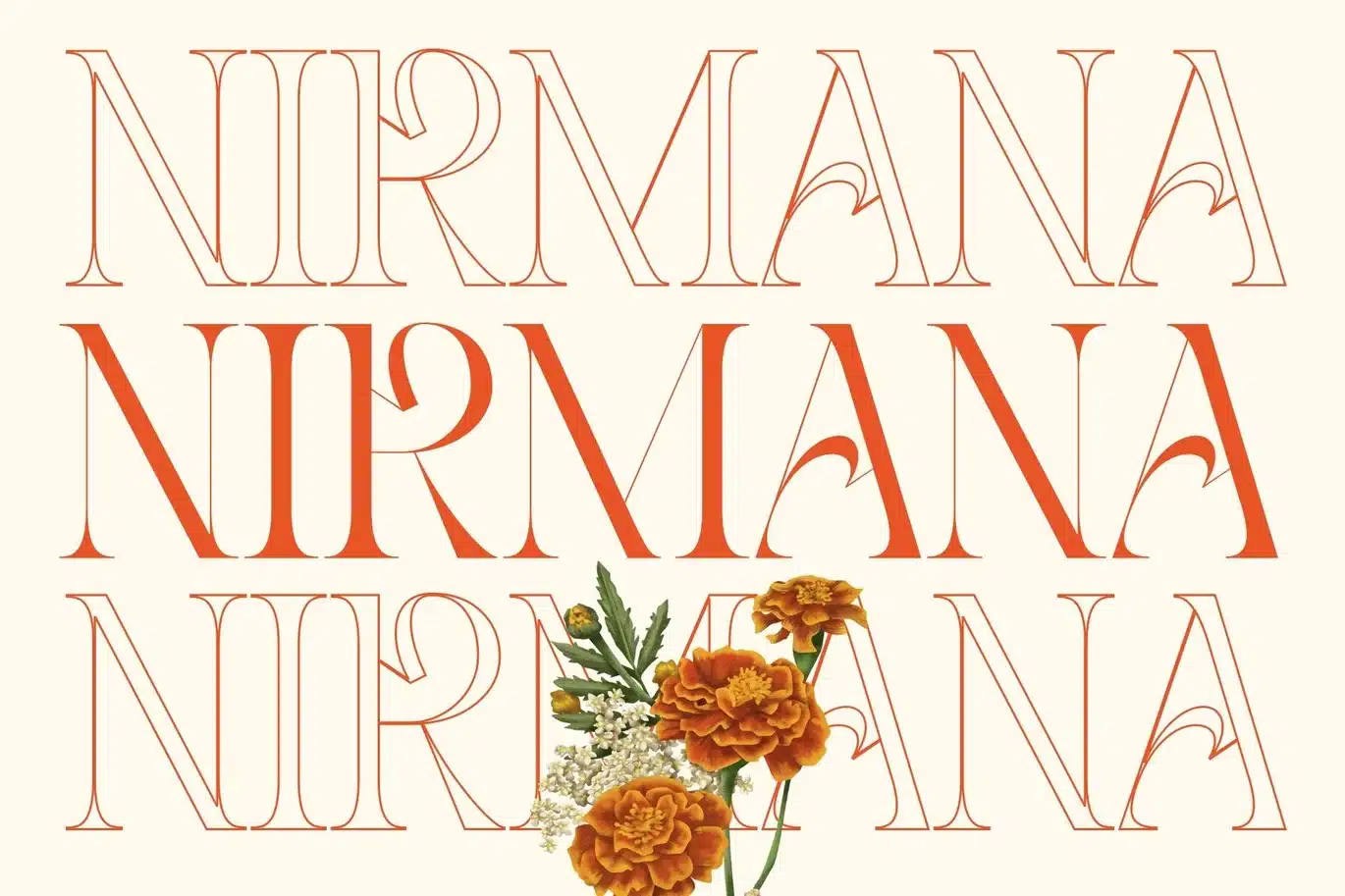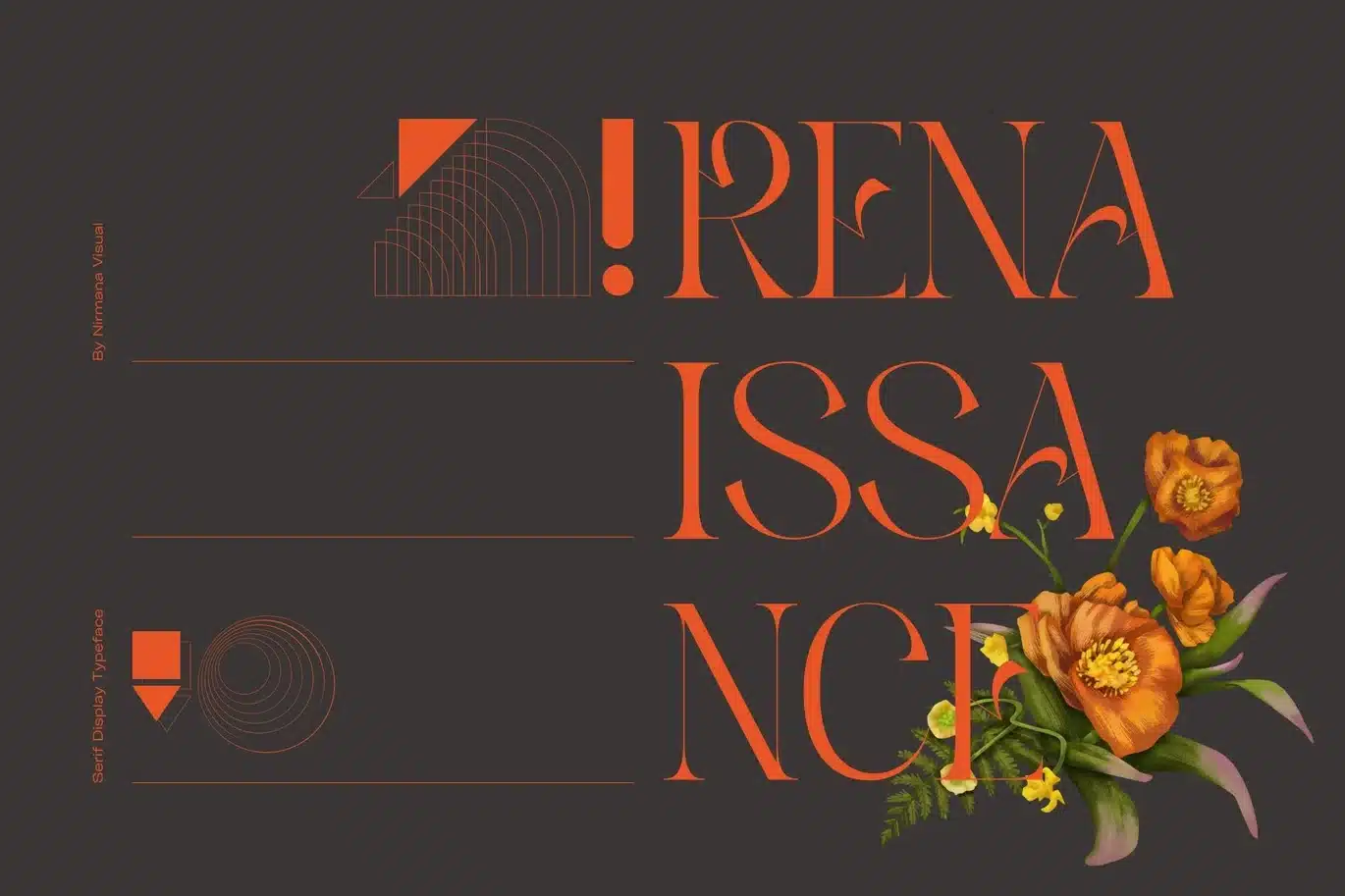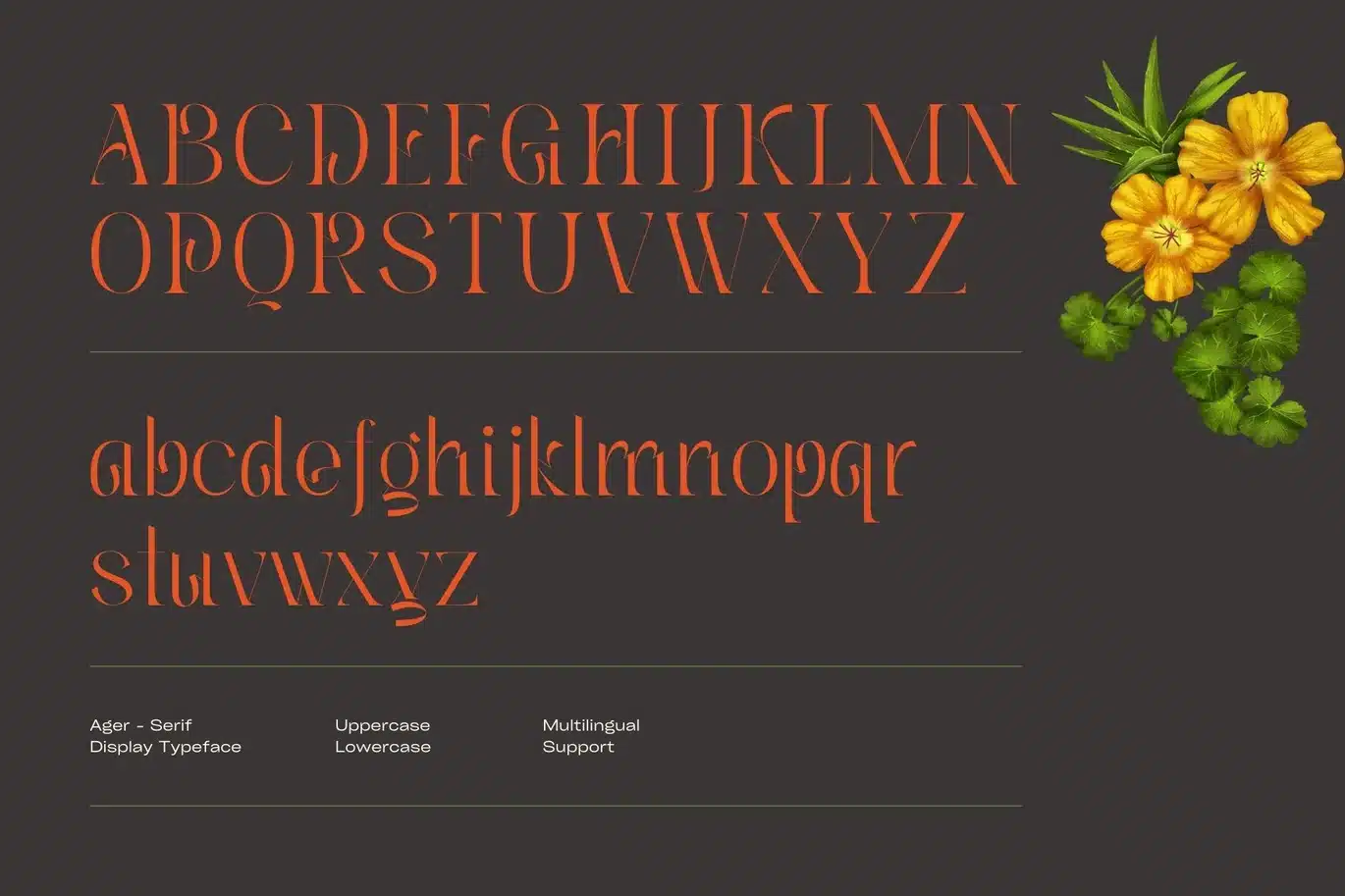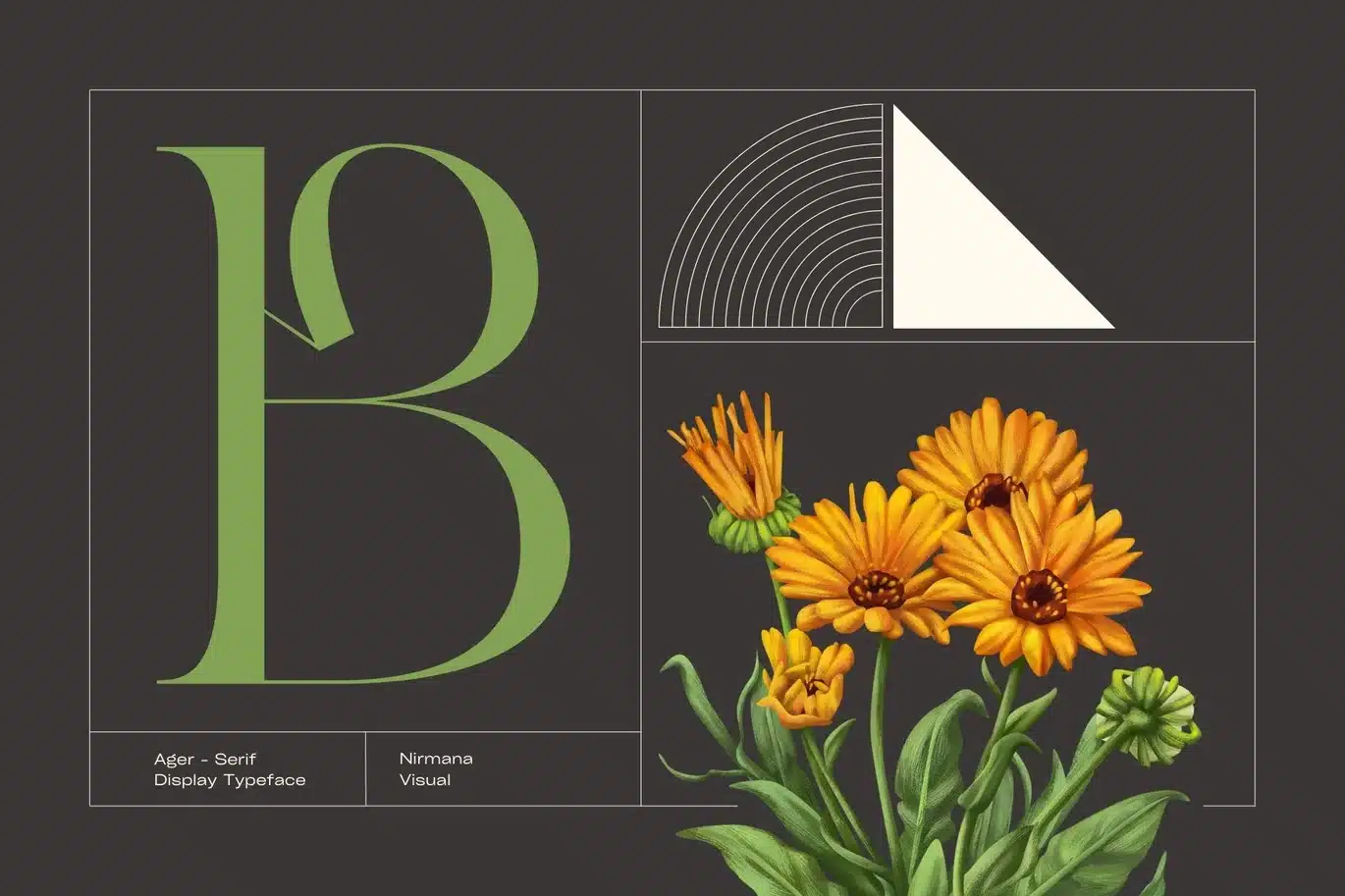
Ager – Logo Font
Ager Inspired by art nouveau Design Era. Aqem offers beautiful typographic harmony for a diversity of design projects, including logos & branding, social media posts, advertisements & product designs.